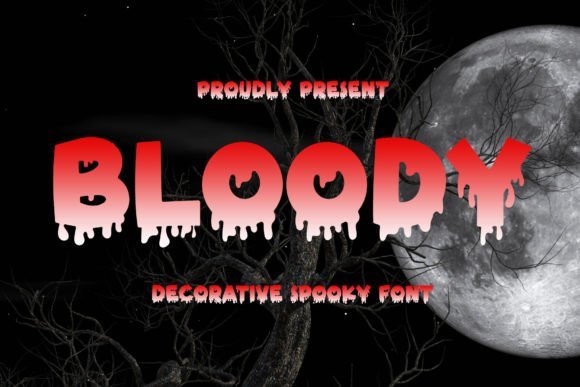
The Perfect Font for a Spooky Season
As the sun sets on a crisp autumn evening, you find yourself rummaging through your craft supplies, searching for the perfect font to add a touch of eeriness to your latest Halloween project. The flickering candles and creaking trees outside seem to whisper, “This year, make it scarier than ever.”
That’s when you stumble upon the Bloody Font – a spooky and scary decorative font that’s sure to send chills down the spines of your friends and family. Inspired by the Halloween holiday, this font is perfect for designers and crafters who want to add a touch of horror to their creations. Whether you’re designing a spooky poster or crafting a haunted house decoration, the Bloody Font is sure to make your project stand out.
With its unique and haunting design, the Bloody Font is a valuable addition to any designer’s font collection. It’s the perfect way to add a touch of macabre to your designs and catch everyone’s attention.
Bloody Font Key Features
- Font Family: Bloody Font is a sans-serif font family designed for use in graphic design and digital media.
- Unique Characteristics: Features a distressed, hand-drawn aesthetic with a bold, edgy feel, making it suitable for use in horror, punk, and alternative design themes.
Bloody Font Review
I recently had the chance to work with the “Bloody Font” and I must say it’s a bold and attention-grabbing addition to any design project. ✨
Here are some of its strengths:
- Uniquely styled, it’s perfect for horror-themed or action-packed designs.
- The font is highly customizable, allowing you to fine-tune its look to fit your project’s needs.
- Its readability is surprisingly good, considering its unconventional design.
- It may not be suitable for projects that require a more subtle or elegant font.
- The font’s complexity may cause issues in certain design software or operating systems.
- It can be a bit overwhelming if used extensively throughout a design.
- ⚠️ Be cautious when using it for text-heavy designs, as it can be straining on the eyes.
Overall, I think “Bloody Font” is a solid choice for designers who want to add a touch of edginess to their projects. It’s not for everyone, but in the right context, it can be a real showstopper.
Getting the Most Out of Bloody Font
For best results, use Bloody Font sparingly to create a dramatic effect. You can also experiment with different font sizes and colors to achieve the desired look.
Bloody Font is commonly used in horror-themed designs, gothic-inspired art, and other projects that require a dark and mysterious tone.
Embracing the Dark Side with Bloody Font